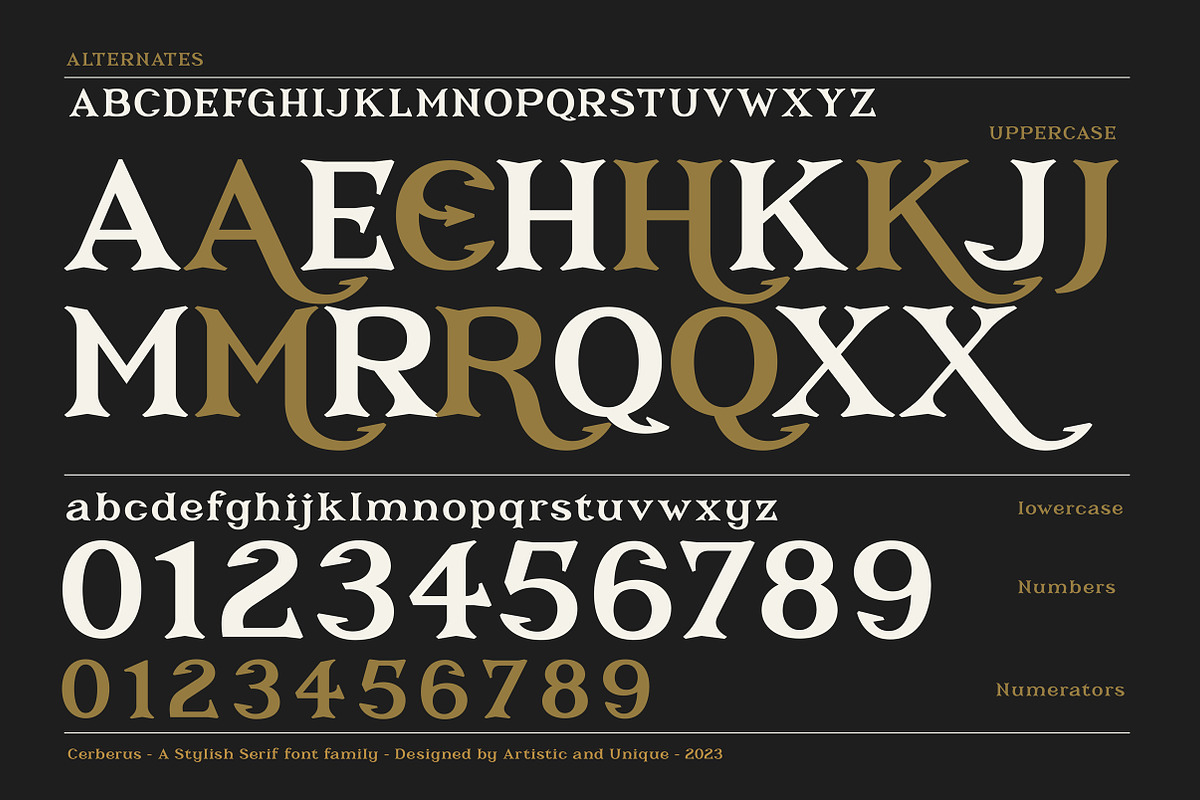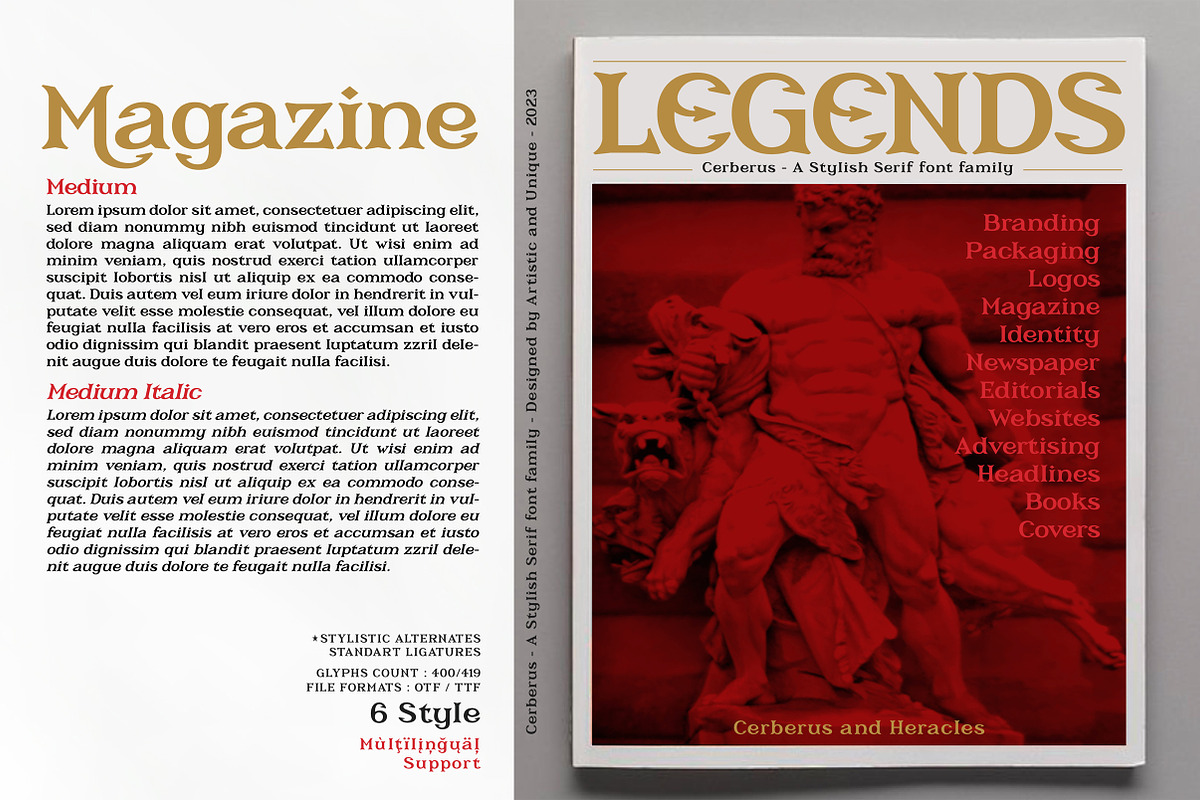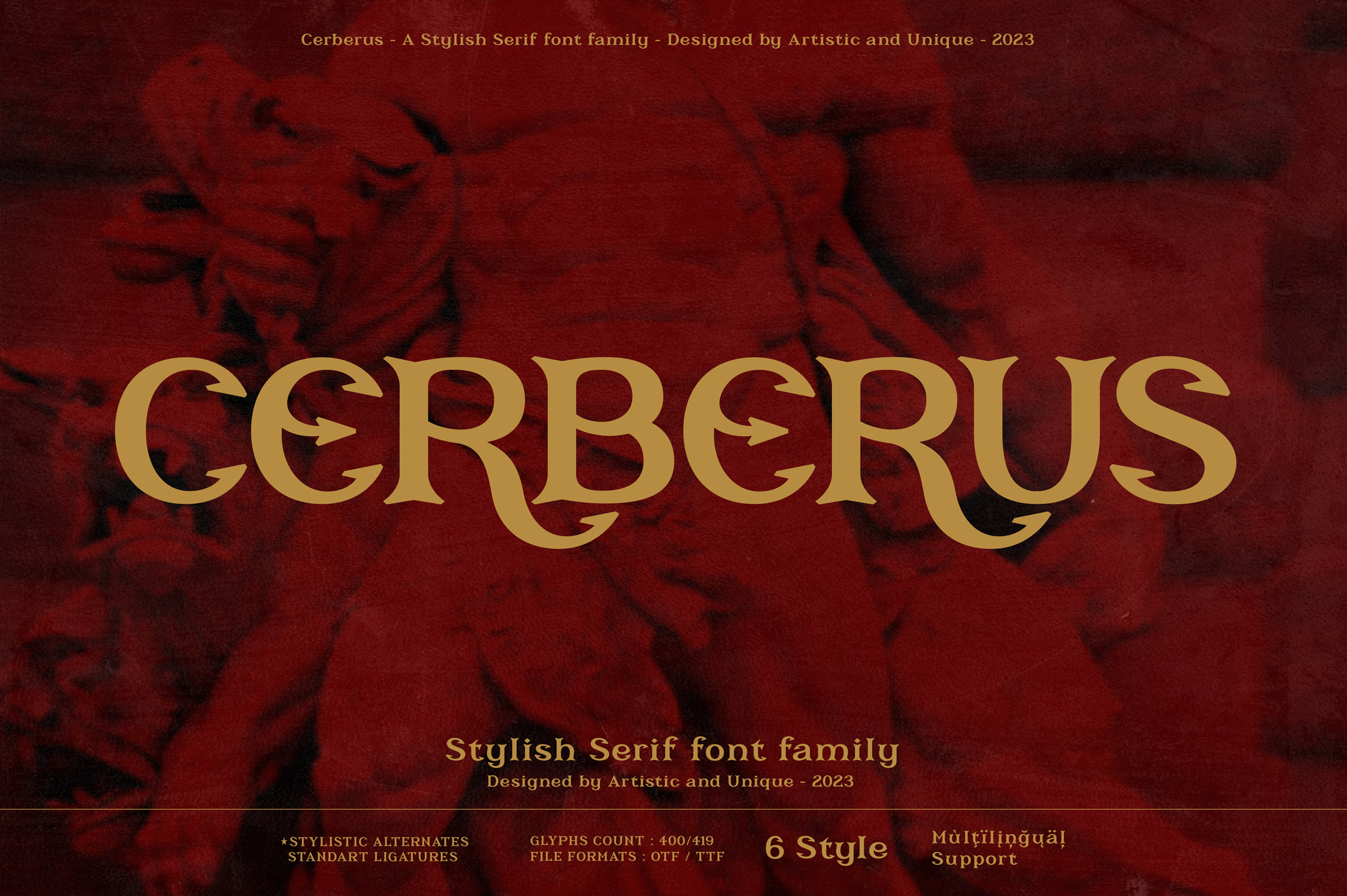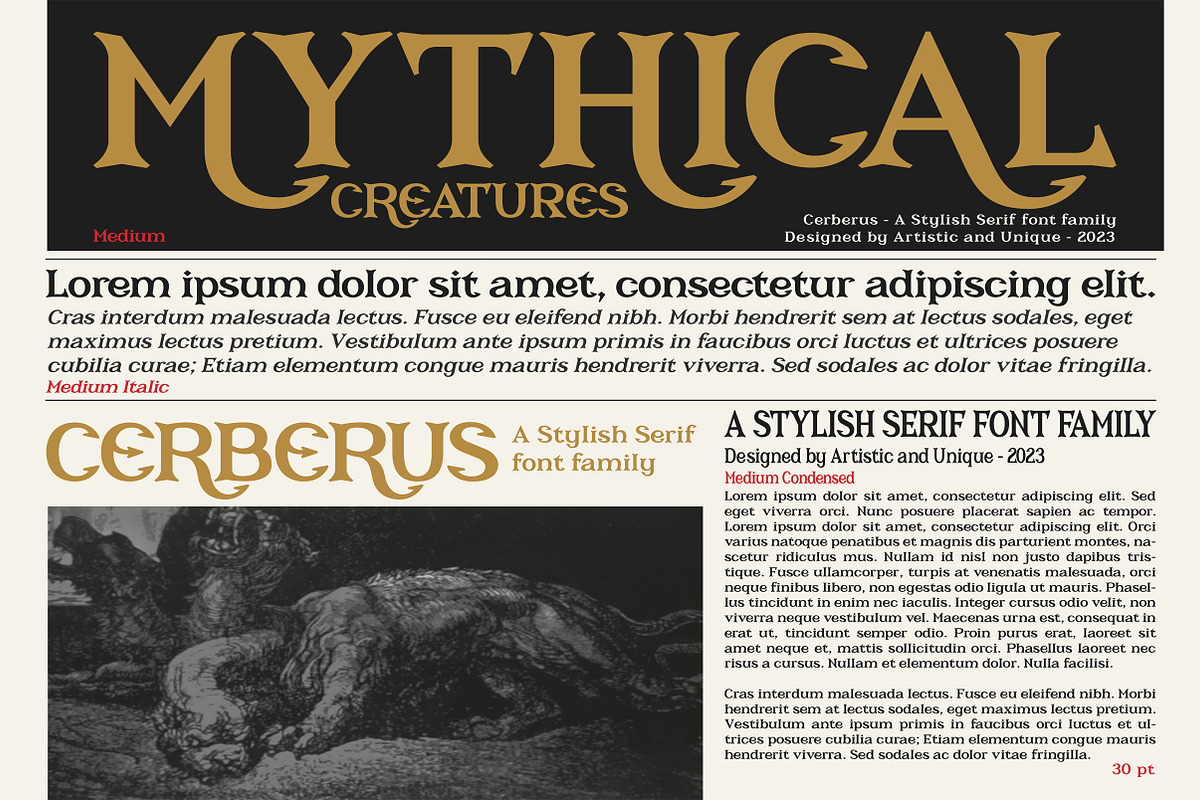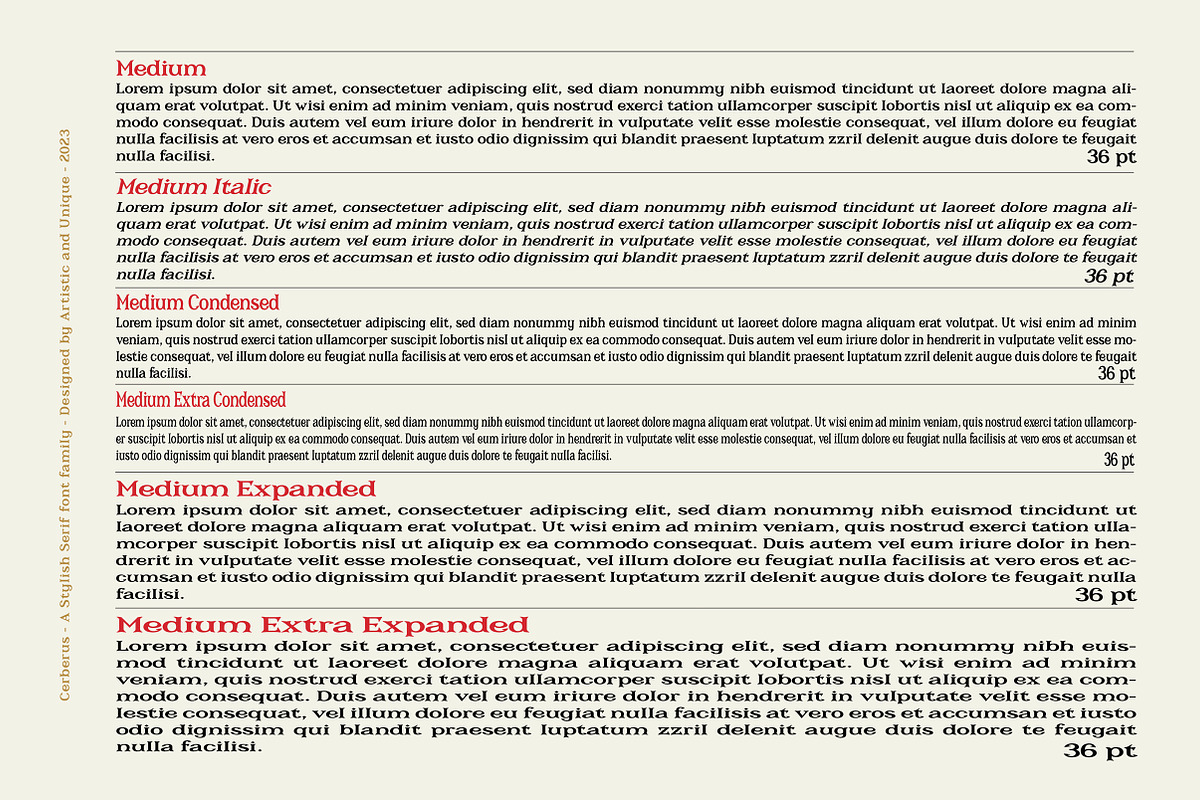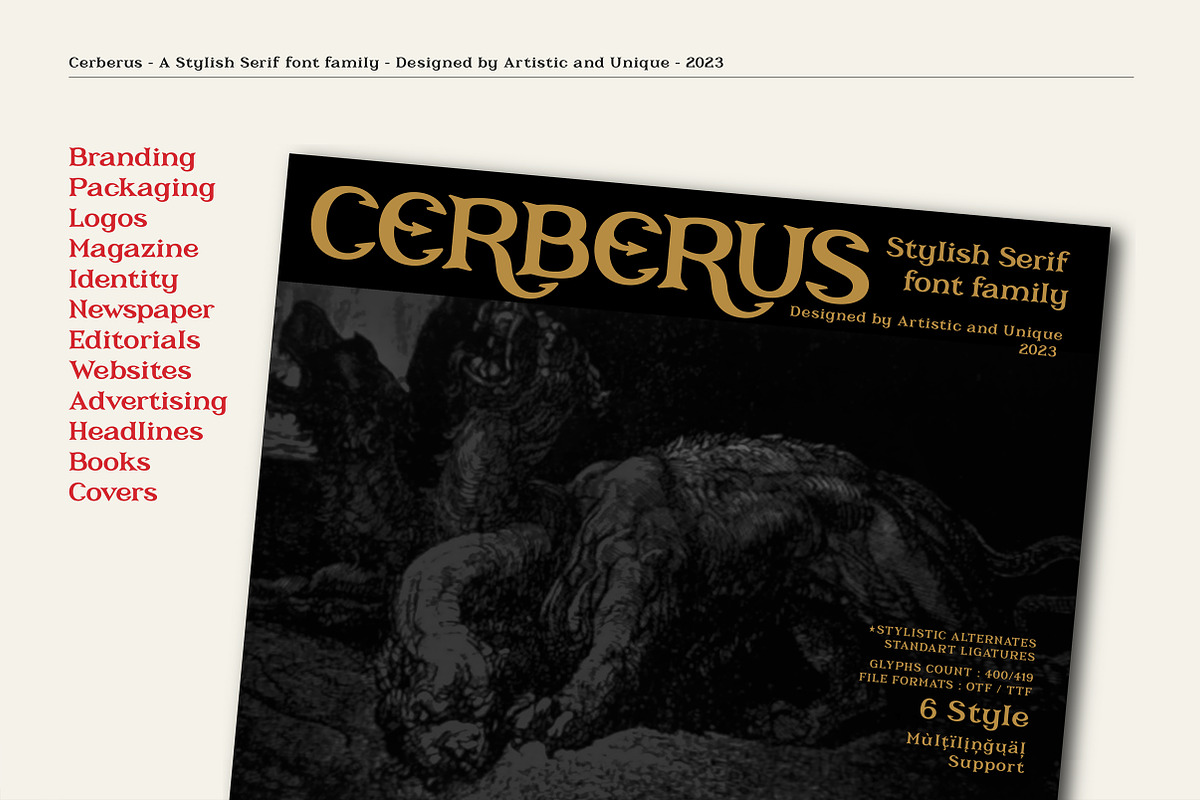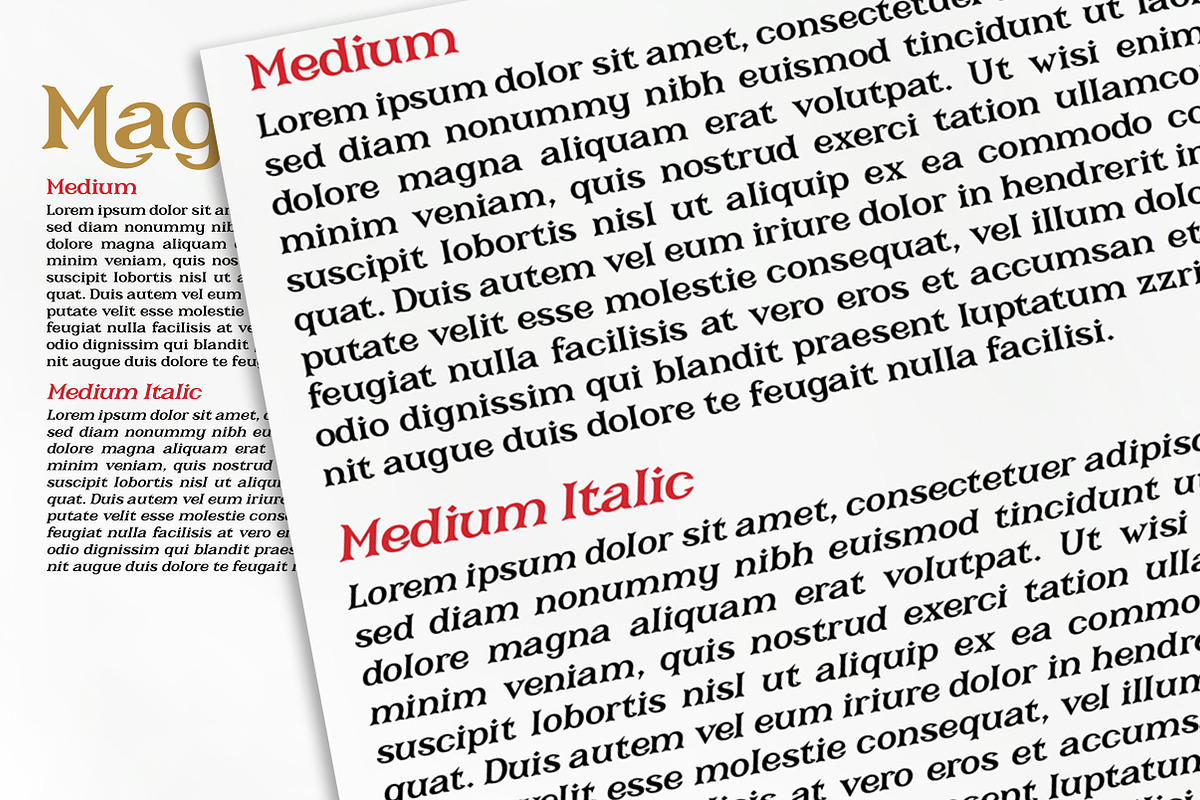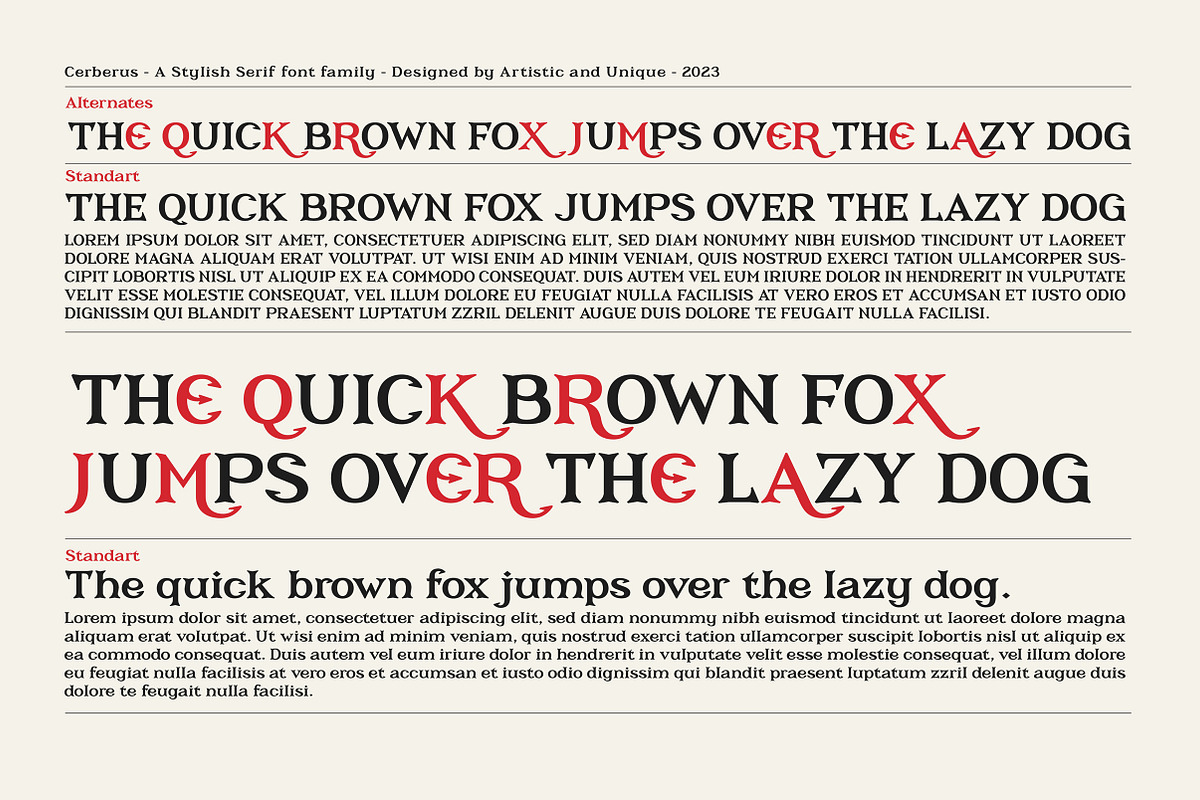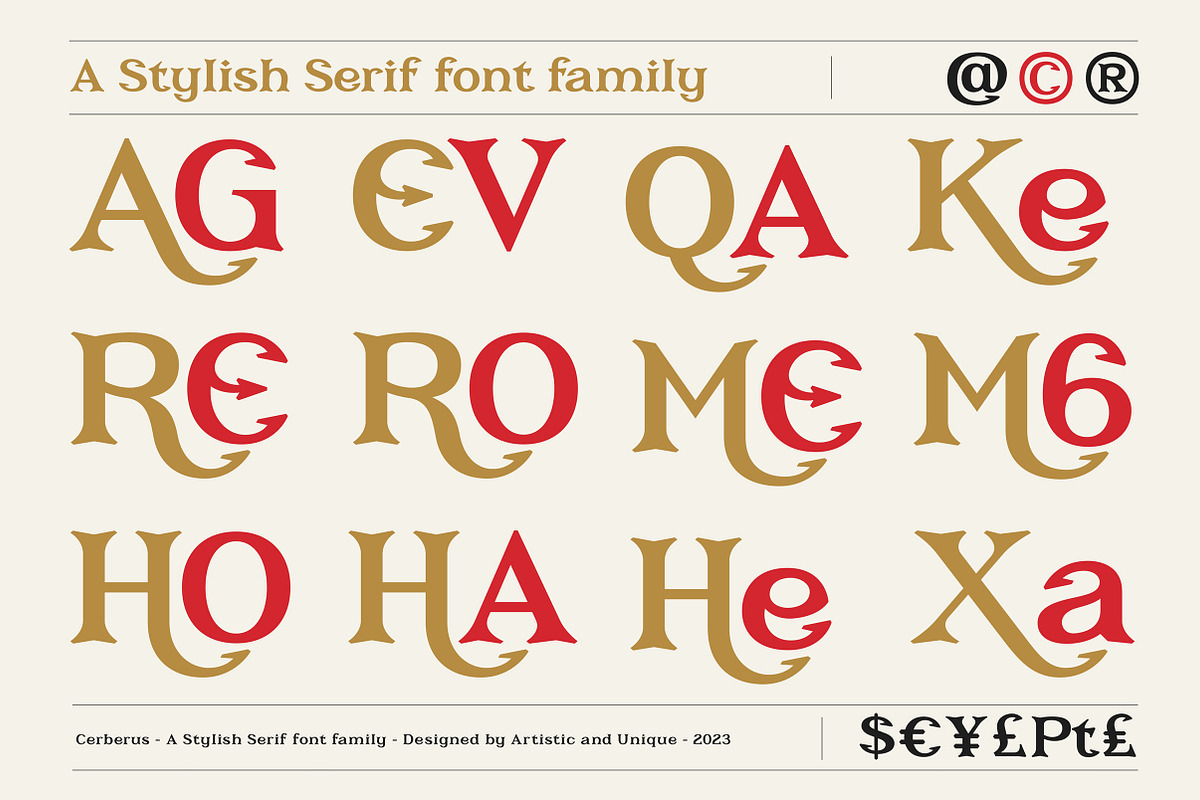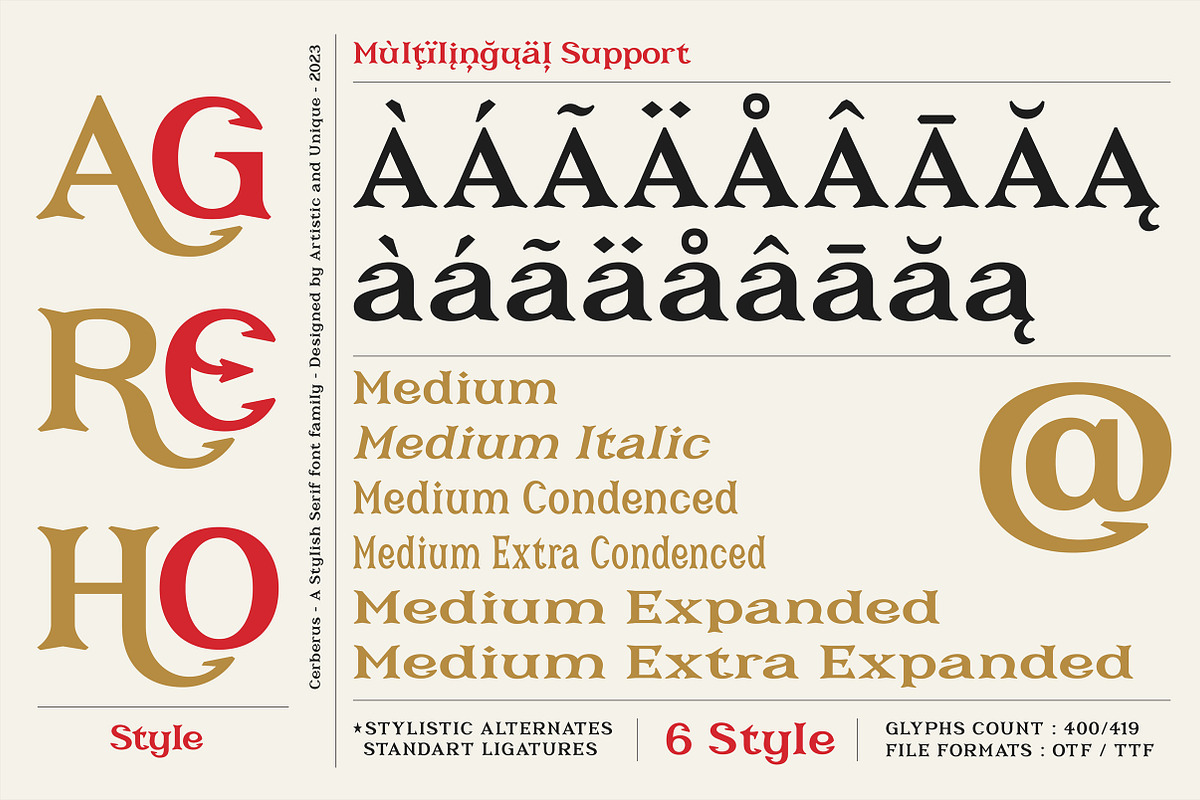
Cerberus - Serif font family
Cerberus is a stylistic and powerful serif font family that can be effective in the development of your projects with different alternative type designs and multilingual options.
You can use this font, which is inspired and shaped by the mythological legend, in your designs in accordance with the concept spirit.
Especially for album covers, magazines, books, branding, logo design, web design, title, movie titles, game design etc.
If you’re looking for a font with stylistic alternatives, Cerberus font might meet your needs.
With this font you can create your unique designs.